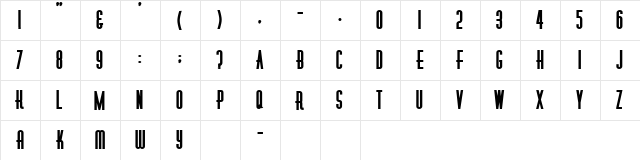
Goering Bold Regular
Design Context for Goering Bold Typeface
Goering Bold takes a measured approach to typography — its balanced proportions and neutral character make it a reliable workhorse for both digital and print work. The heavy weight commands attention and anchors typographic hierarchies.